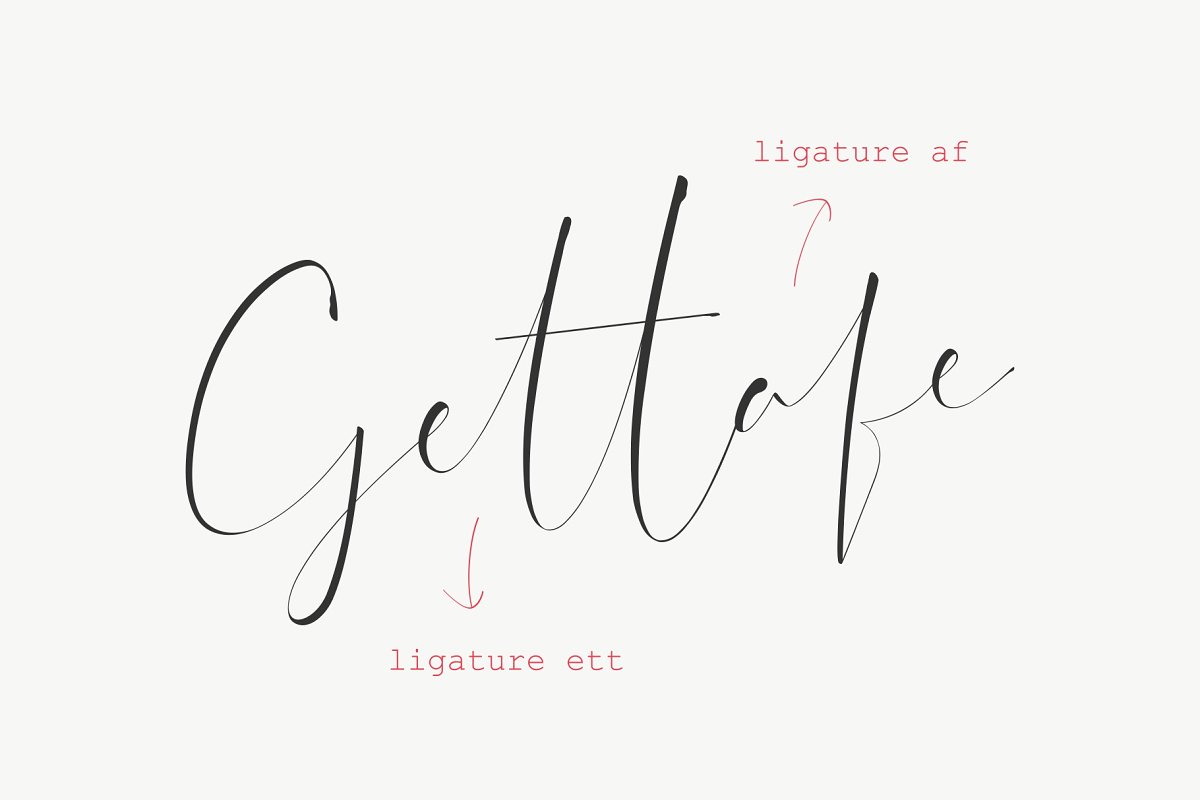
Dattebayo Signature Font
Dattebayo Signature Font is similar to the Brittany font. This font is distinctly utilized in adobe and famous for its pairing characteristics. This font makes the content look fashionable.
This works properly for advertising and marketing. A textured with an unfashionable drop shadow like refrigerator deluxe font so that you can supply an aged revel into your artwork.
Style Of Dattebayo Signature Font Free